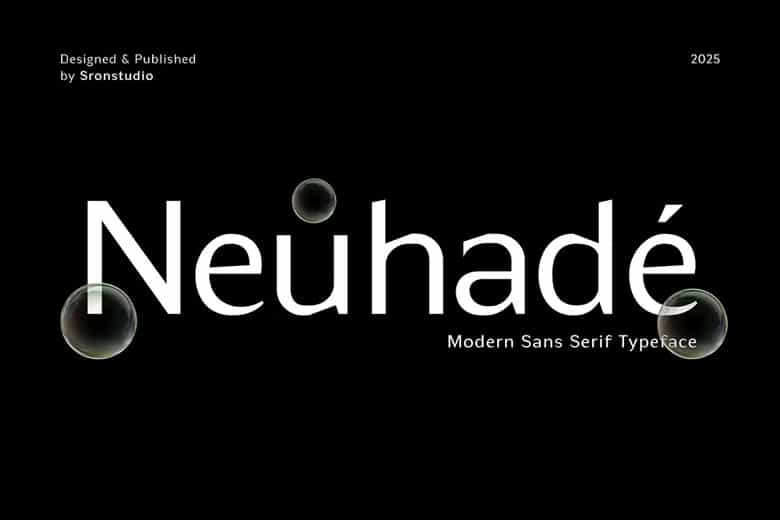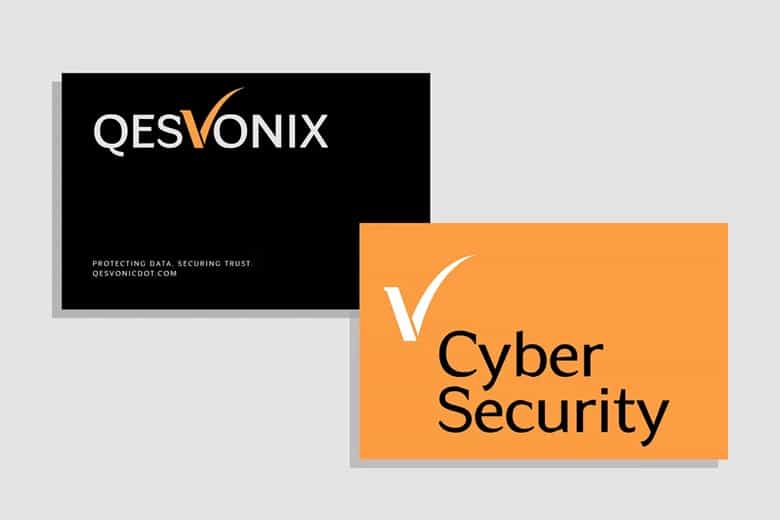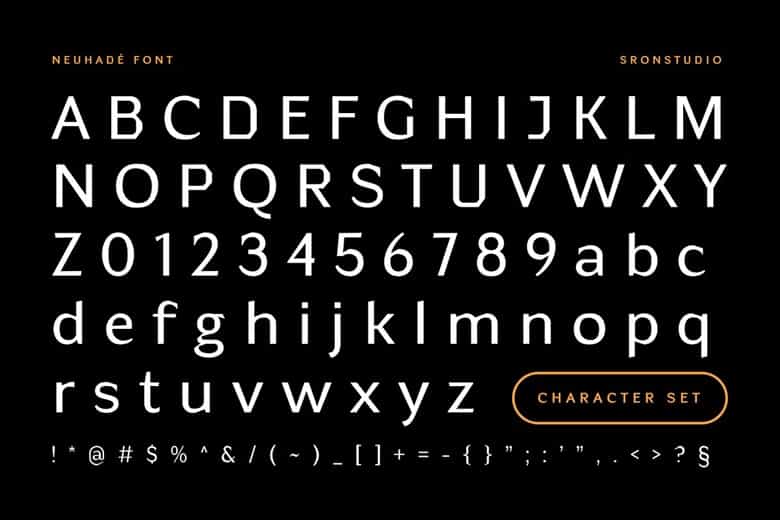
Neuhade is a variety of a contemporary logo sans serif font aiming to provide the perfect fit to the branding material. Arched terminals, smooth, non Thick strokes, pleasant, combined with precision, geometrically contained curves and letterforms have been added to the design of this font,